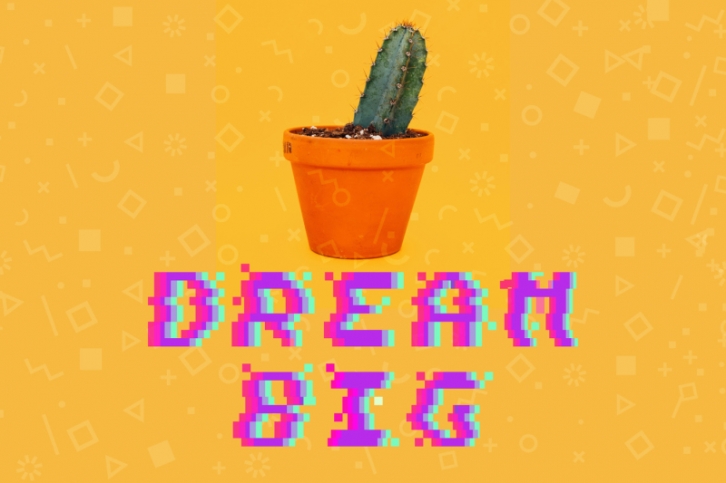
PIXEL GLITCH vector alphabet FONT Download
90's are back!
Sometimes we all feel kind of nostalgic about the time that passed. The retro feeling is always somewhere in the air. I feel nostalgic about 90's so much, that I got very much inspired and created this pixel art vector alphabet.
This kit is ideal for any product display, cards, t-shirts design, invitations, flyers, posters, scrapbooking, as well as for social networking. Give your Instagram, Facebook page or website trendy retro vibe.